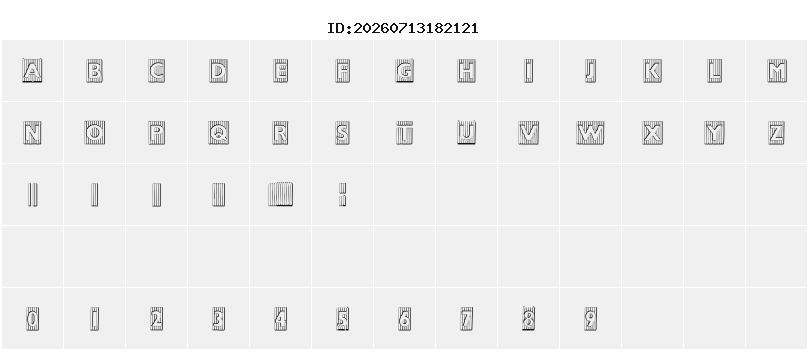
BadBaltimore Beveled Preview
• Font Name: BadBaltimore Beveled
• Full Font Name: BadBaltimore Beveled
• Manufacturer: Paulo W, Intellecta Design
About BadBaltimore Beveled.ttf
BadBaltimore Beveled.ttf is a modern, elegant sans-serif font designed for ultimate readability and visual harmony. Perfect for branding, headlines, web design, and print materials.